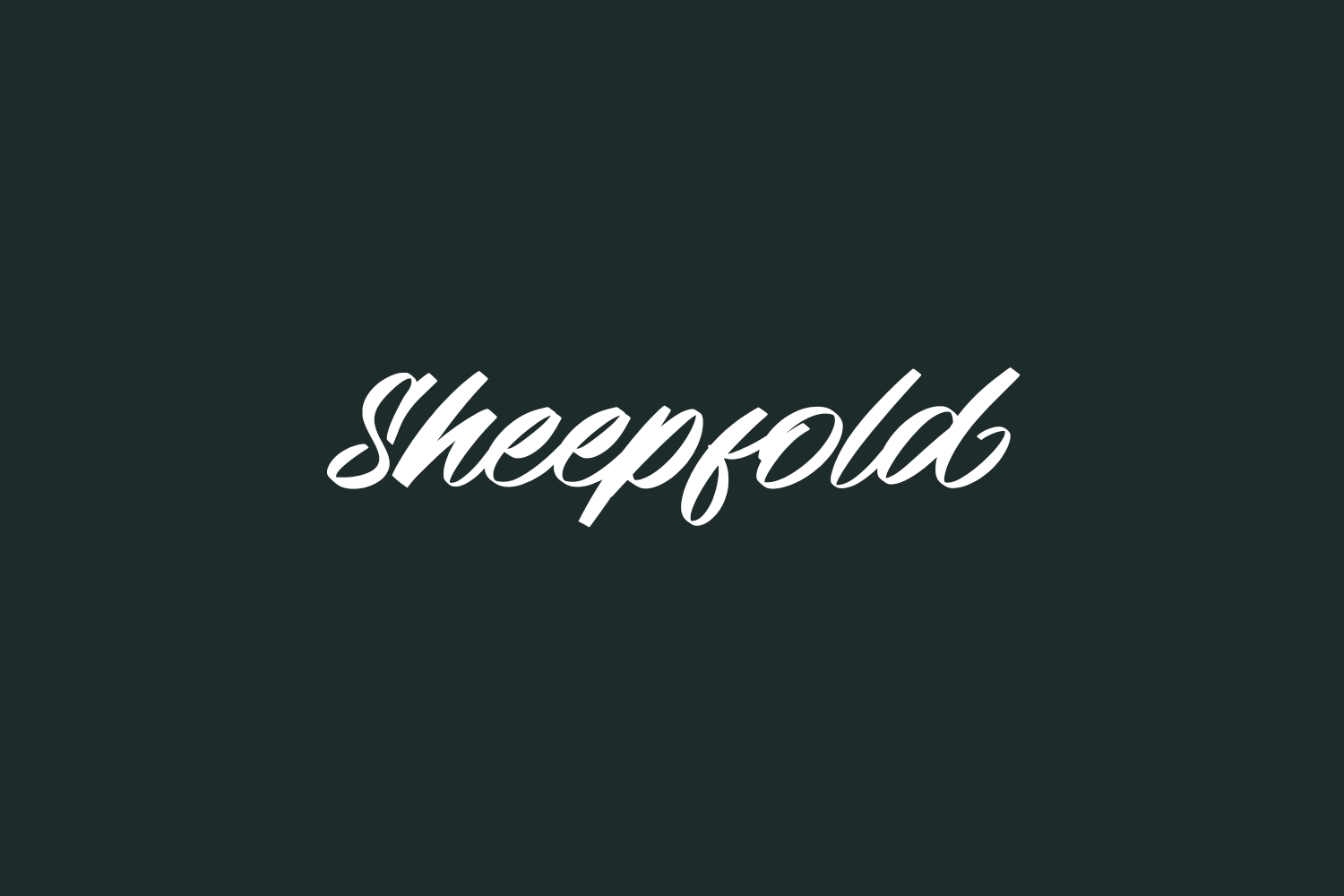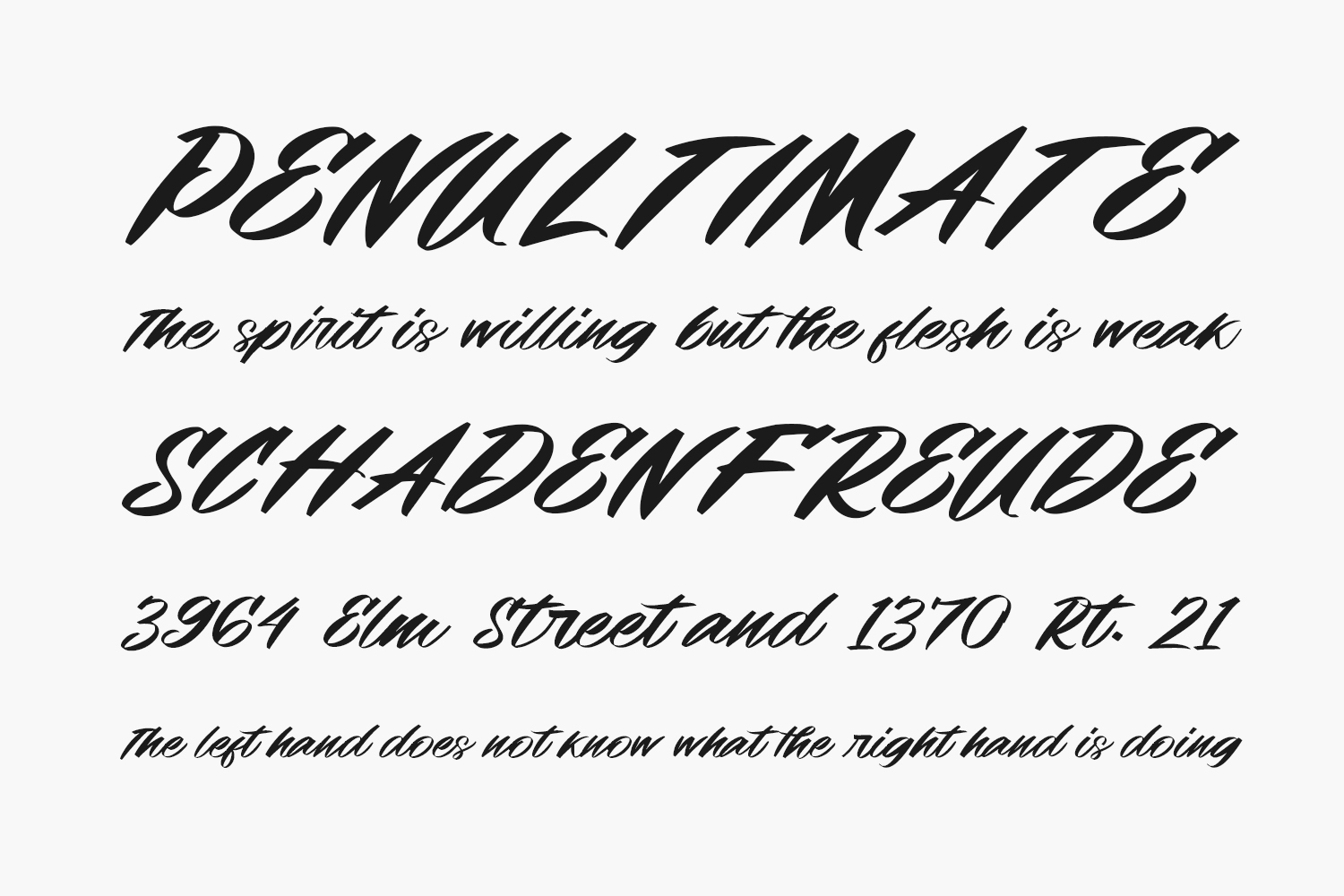
Sheepfold Free Font is a natural handwritten font, featuring an incredibly elegant feel and a stunning brush texture. It is the perfect font for making original and outstanding designs. Sheepfold Free Font was designed by Letterara and is free for personal use only. Please purchase the full version for commercial use.